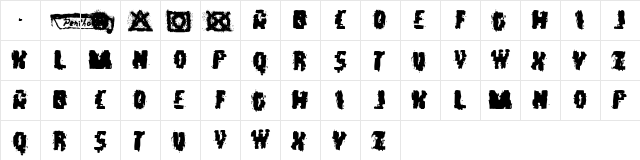
Static Regular Free Font
Static Regular
Design Context for Static
Static is a composed and adaptable typeface that performs quietly and consistently across a wide range of design contexts.